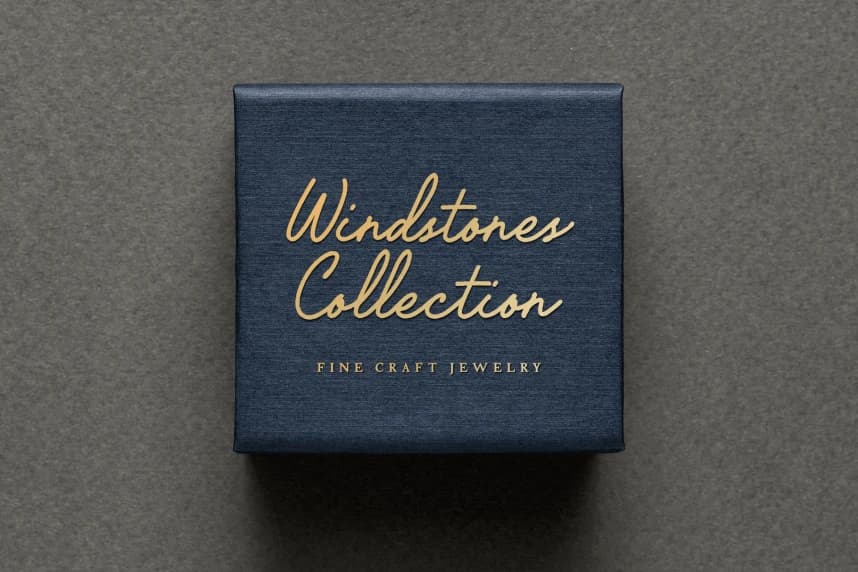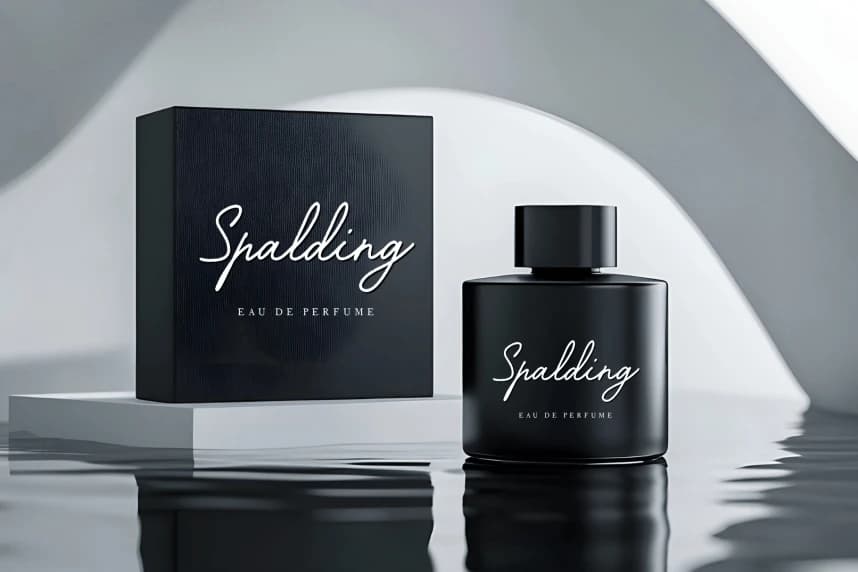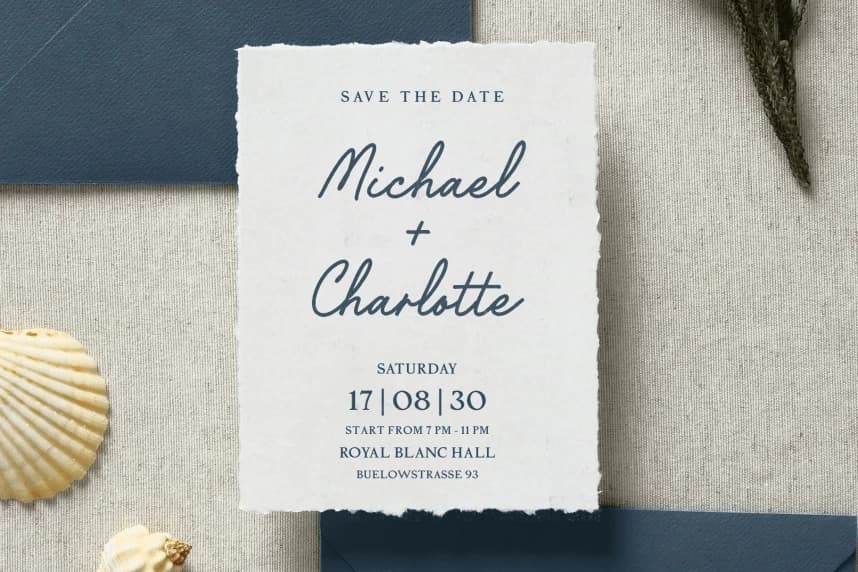
Midnight Reflection – Casual Script Font
Midnight Reflection – Casual Script Font is a casual script font that brings a natural handwritten brush feel into every design. Crafted with authentic flowing strokes and organic brush textures, this font creates a warm, expressive, and vintage-inspired appearance that feels personal and timeless.
Midnight Reflection – Casual Script